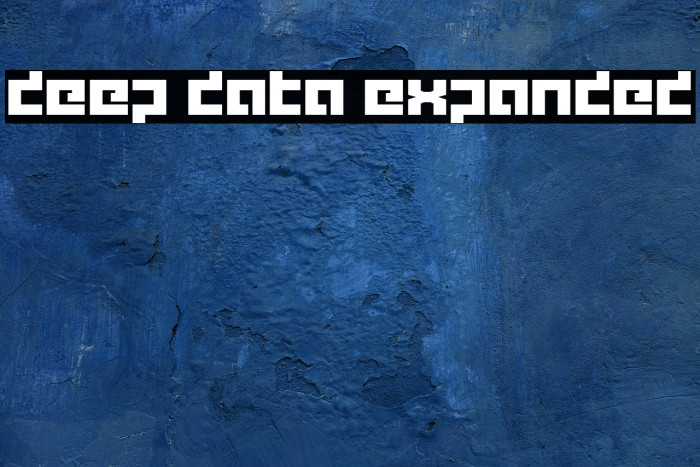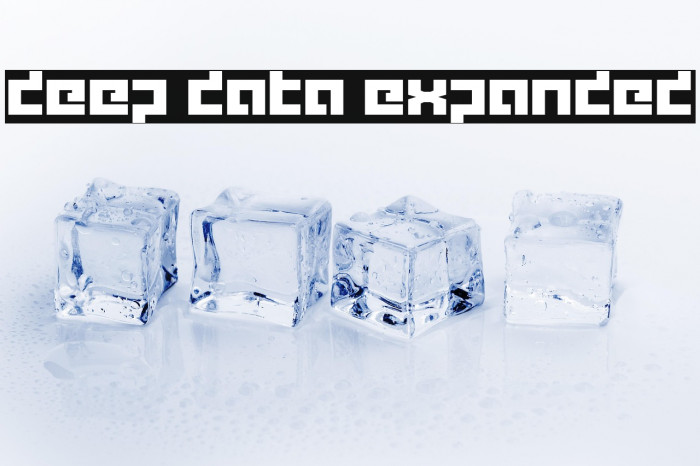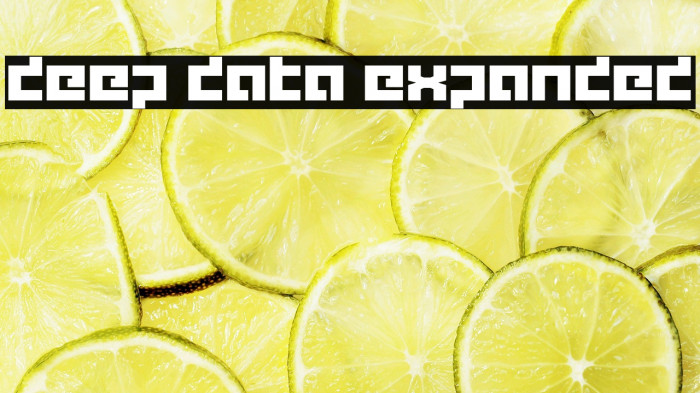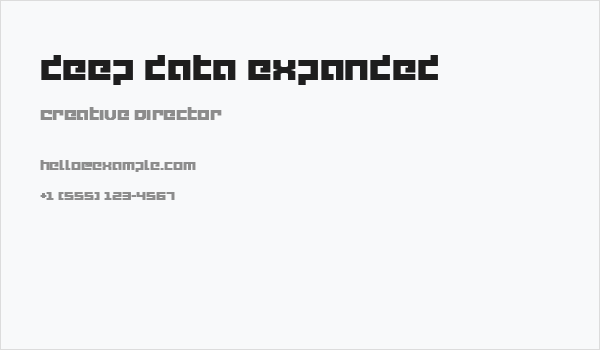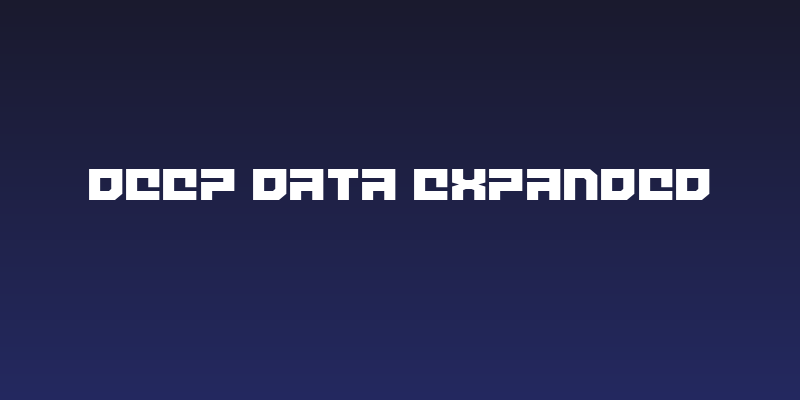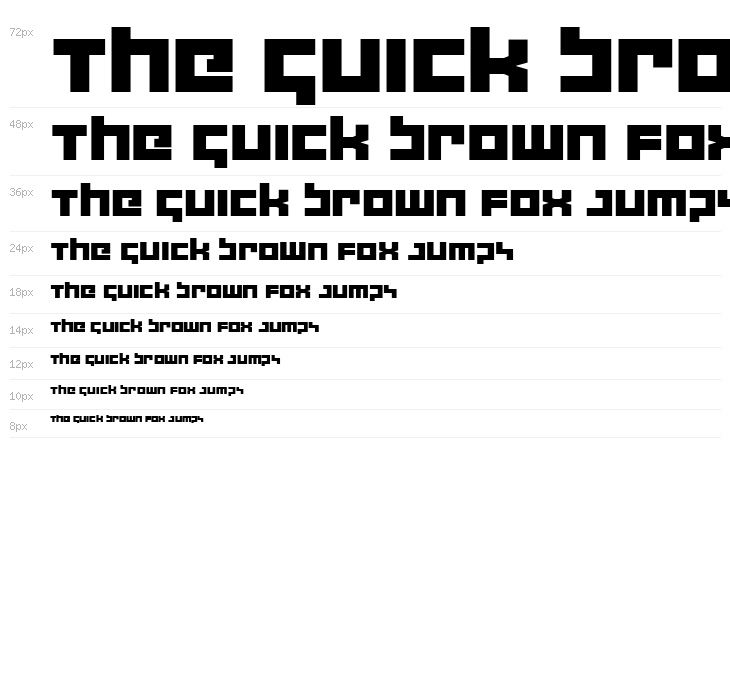
deep data expanded Font
deep data expanded Description
This font exhibits a bold, geometric style with a distinctly modern and digital aesthetic. The characters are constructed with sharp angles and straight lines, giving them a blocky, pixelated appearance reminiscent of early digital displays or retro video games. The uniformity in stroke width across all characters contributes to a cohesive and robust look. The uppercase and lowercase letters maintain a consistent height, enhancing the font's monospaced feel. Numbers and special characters follow the same design principles, ensuring visual harmony throughout. This font's unique style makes it stand out, offering a futuristic and tech-inspired vibe.
| Use Case | Logos, Headlines, Digital displays |
| Proposed Projects | Ideal for tech-related branding, video game graphics, digital art projects, and futuristic-themed designs. |